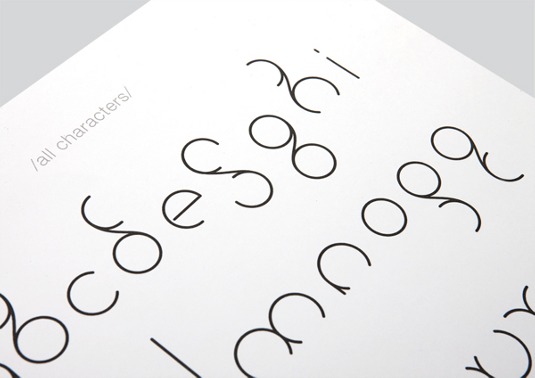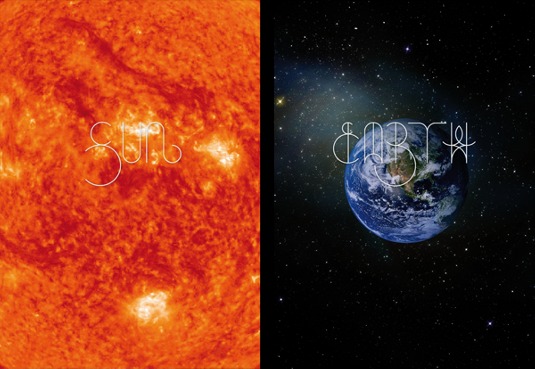
Font of the day: Universum
Every day we showcase the best fonts on the web. Today it's Universum by JAF 34, which is free to download.
Universum by JAF 34
Universum is a free font created by Prague-based graphic designer JAF 34. He wanted to create his own typeface based around the circle and variations on it, and here's the result.